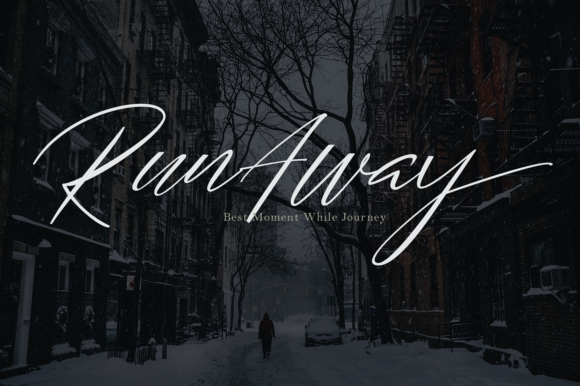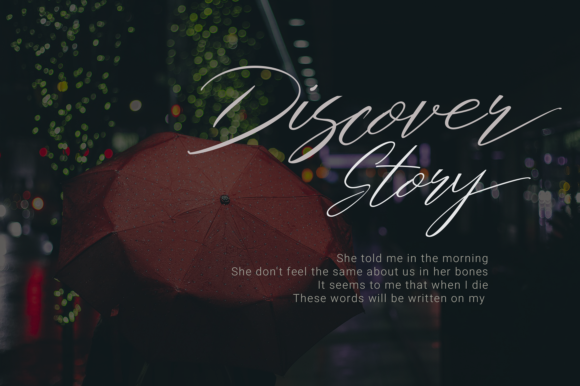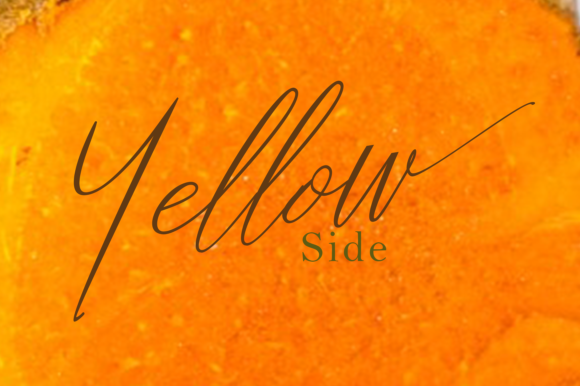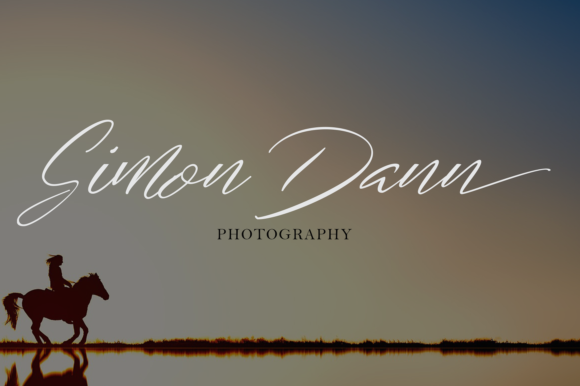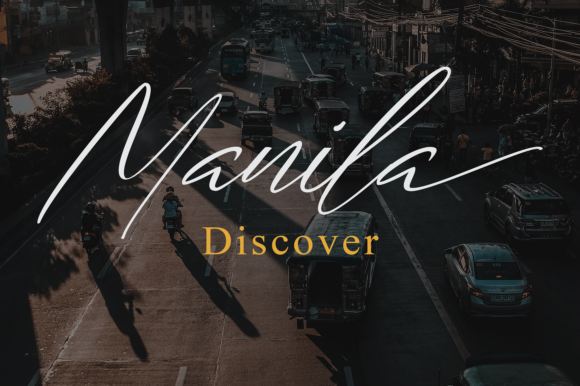
Introducing the Faboulus Font: Elevate Your Designs with a Touch of Elegance
In the world of typography, fonts play a crucial role in conveying the tone and personality of a design. For designers and crafters looking to add a touch of sophistication and whimsy to their projects, the Faboulus Font is an excellent choice. This modern script font boasts a hand-brushed style, making it perfect for a variety of applications, from branding and business cards to greeting cards and wedding stationery.
What Makes Faboulus Font Stand Out?
The Faboulus Font is characterized by its unique blend of elegance and playfulness. Its hand-brushed style gives it a personal and artistic feel, while its decorative characters and dancing baseline add a touch of dynamism. This font is not just a collection of letters; it’s an experience. It can elevate your designs, making them more engaging and memorable.
Key Features of Faboulus Font
- Modern Script Style: The Faboulus Font features a modern script style that is both current and timeless. Its brush strokes are fluid and natural, giving your designs a handmade feel.
- Hand-Brushed Appearance: The hand-brushed appearance of this font adds a layer of authenticity and charm. It’s perfect for designs that require a personal touch.
- Decorative Characters: The font includes a range of decorative characters that can be used to add flair to your designs. From elegant swashes to playful flourishes, these characters can help your project stand out.
- Dancing Baseline: The dancing baseline of the Faboulus Font adds a whimsical touch to your text. It’s perfect for creating dynamic and visually appealing designs.
Uses of Faboulus Font
The versatility of the Faboulus Font makes it suitable for a wide range of design projects. Here are some of the ways you can use this beautiful font:
- Branding: Use the Faboulus Font to create a unique and memorable brand identity. Its elegant and modern style makes it perfect for logos, business cards, and letterheads.
- Business Cards: Make a lasting impression with business cards that feature the Faboulus Font. Its hand-brushed style and decorative characters will set you apart from the competition.
- Stamps: Add a touch of elegance to your stamps with the Faboulus Font. Whether you’re creating custom stamps for business or personal use, this font is sure to impress.
- Quote Posters: The Faboulus Font is perfect for creating inspirational quote posters. Its dynamic and whimsical style will make your quotes stand out.
- Greeting Cards: Whether you’re creating greeting cards for birthdays, holidays, or special occasions, the Faboulus Font is an excellent choice. Its decorative characters and dancing baseline will add a touch of whimsy to your designs.
- Wedding Stationery: The Faboulus Font is especially gorgeous on wedding stationery. Use it for save-the-date cards, invitations, and thank-you notes to add a touch of elegance and romance to your wedding decor.
Tips for Using Faboulus Font
To get the most out of the Faboulus Font, here are a few tips:
- Experiment with Sizes: The Faboulus Font looks great in various sizes. Experiment with different sizes to find the perfect fit for your design.
- Play with Colors: The hand-brushed style of the Faboulus Font lends itself well to a variety of colors. Try using different colors to add depth and interest to your designs.
- Mix and Match: Don’t be afraid to mix and match the Faboulus Font with other fonts. Its decorative characters and dancing baseline make it a great pairing with simpler fonts.
| Font Name | Faboulus Font |
The Faboulus Font is a versatile and elegant font that can elevate your designs to the next level. Its modern script style, hand-brushed appearance, decorative characters, and dancing baseline make it perfect for a wide range of projects. Whether you’re a designer or crafter, this font is sure to become a favorite in your collection. So why wait? Download the Faboulus Font today and start creating beautiful designs that will leave a lasting impression.